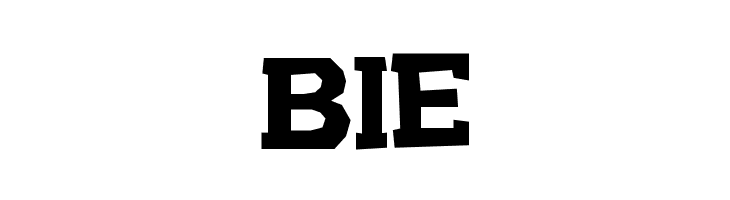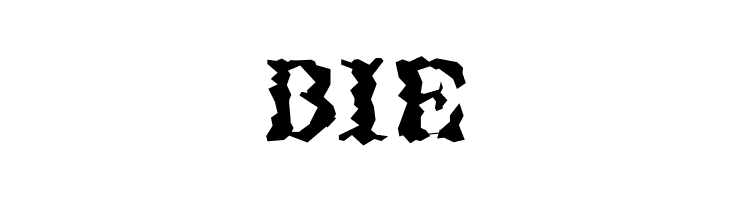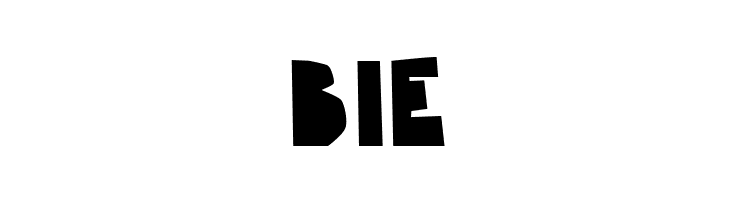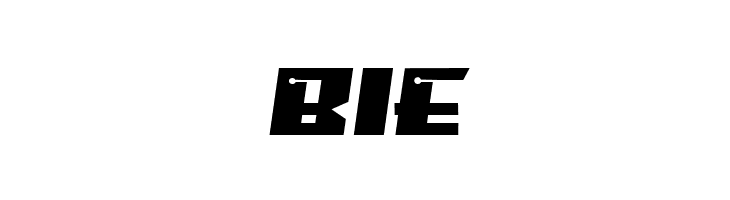
A playful, hand-drawn font with wavy, organic strokes and a whimsical feel.
A decorative dingbat font featuring a variety of unique frame designs.
A bold, expressive handwritten font with dynamic strokes.
A bold, decorative font with star-shaped cutouts and thick outlines.
A decorative font with brain-like textures, perfect for playful and unconventional designs.
A lively, fluid handwritten font with smooth curves and a personal touch.
A bold, geometric font with a modern, industrial aesthetic.
A bold, decorative font with a striped pattern and geometric structure.
A bold, decorative font with angular, ornate designs and intricate flourishes.
An angular, decorative font with Gothic influences and intricate detailing.
A clean, geometric font with uniform strokes and rounded edges.
A geometric, modern font with clean, rounded edges.
A playful, 3D block-style font perfect for children's designs.
A bold, decorative font with a vintage, three-dimensional style.
A bold, playful font with eye-adorned uppercase letters and solid lowercase characters.
A bold, playful font with quirky eye motifs in uppercase letters.
A bold, decorative font with ornate uppercase and traditional serif lowercase.
A playful font with animated uppercase letters and bold, clean lowercase characters.
A bold, futuristic font with geometric and block-like design.
An artistic and elegant font with elongated, narrow letterforms and decorative elements.
A playful, hand-drawn font with bold outlines and a whimsical style.
An ornate, ribbon-inspired script font with elegant flourishes.
A fluid and elegant script font with medium contrast and graceful letterforms.
A whimsical, decorative font with nature-inspired embellishments and modern elements.
A decorative font with floral embellishments and bold, artistic letters.
A decorative font with martial arts figures representing each character.